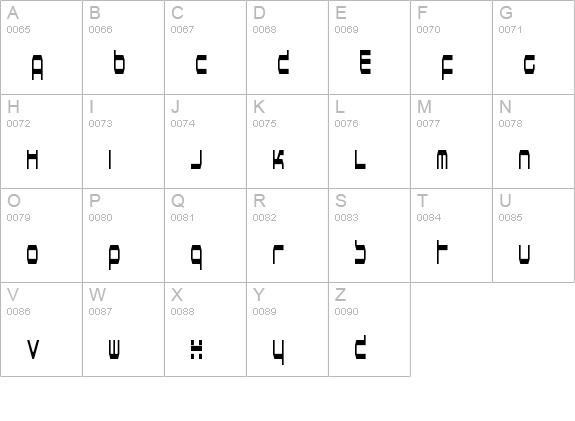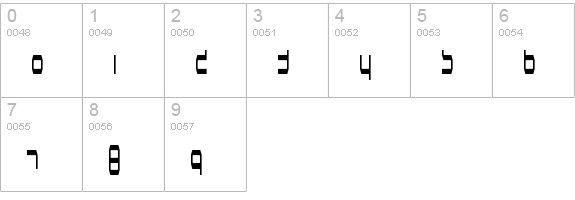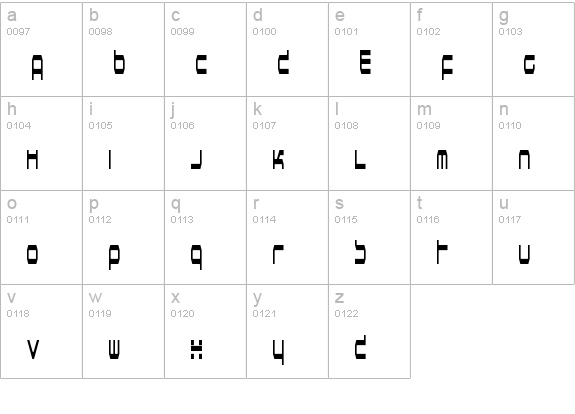
Horsepower Font Details
Horsepower font is a dynamic and bold typeface that exudes power and strength. With its sharp angles and sleek lines, this font is perfect for conveying a sense of speed and energy in your designs. Whether you're creating a poster for a high-octane event or designing a logo for a sports team, Horsepower font will make a bold statement. What's even better is that Horsepower font is available for free download at FontsMarket.com. This means you can easily add this impressive font to your collection without any cost. Don't miss out on the opportunity to enhance your designs with the impactful Horsepower font - download it now and let your creativity run wild!